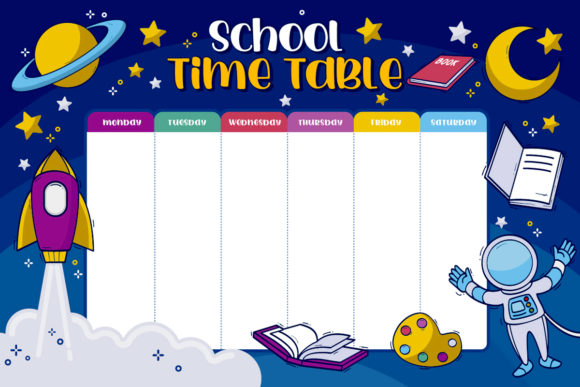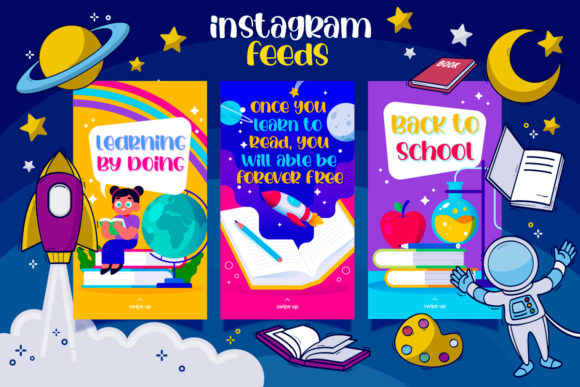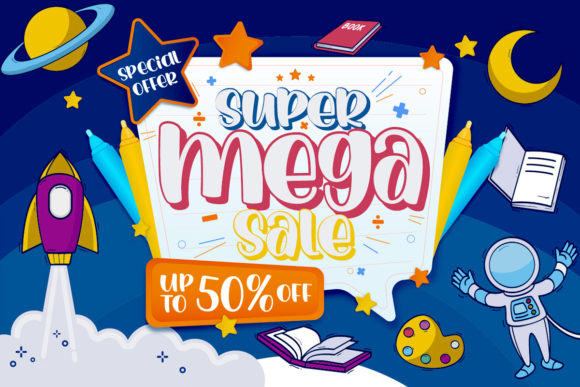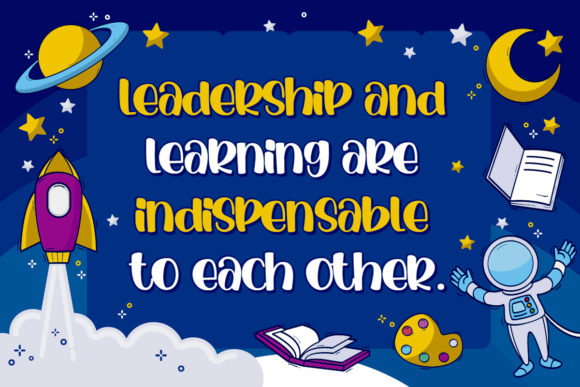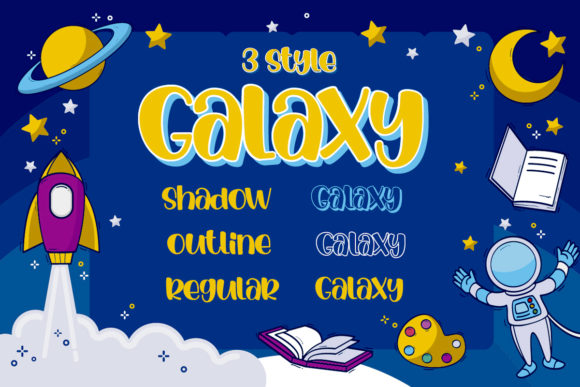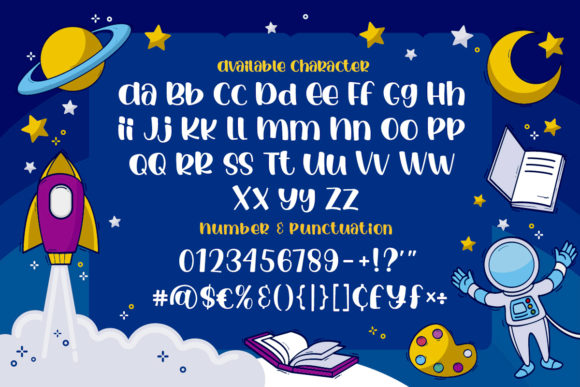
Introduction to Luar Galaxy Font
Have you ever been stuck on a creative project, staring blankly at your screen, searching for the perfect font to bring your vision to life? That’s exactly where I was when I stumbled upon the stunning Luar Galaxy Font. Its unique blend of futuristic and whimsical elements immediately caught my attention, and I knew I had to share it with fellow designers.
With its high-quality design and transparent background, the Luar Galaxy Font is an incredibly versatile resource for any project. Whether you’re working on a children’s book, a casual logo, or a fun graphic, this font is sure to add an extra layer of creativity to your design. And the best part? It’s available for a free download, making it a valuable addition to any designer’s toolkit.
As a design resource, the Luar Galaxy Font is a game-changer. Its endless variations and adaptability make it perfect for designers who want to think outside the box and push the boundaries of their creativity. So why not give it a try and see what amazing things you can create with this incredible font?
Key Features of Luar Galaxy Font
- High-quality, professional design suitable for various creative projects, including logos, posters, and infographics.
- Comes in a single weight, offering a clean and modern aesthetic perfect for various design applications.
Honest Review: Luar Galaxy Font
I recently stumbled upon the Luar Galaxy Font and I must say it’s been a game-changer for my creative project. This free download has been a valuable addition to my design resource library, offering a high-quality font that’s perfect for any futuristic-themed design.
What works well: ✨ The Luar Galaxy Font has a unique, out-of-this-world aesthetic that’s sure to captivate your audience. The transparent background makes it easy to incorporate into any design, and the font is highly customizable. The font also comes in a range of weights, from light to bold, making it versatile for any design project.
- Unique, futuristic aesthetic
- Range of weights (light to bold)
Limitations: ⚠️ While the Luar Galaxy Font is generally well-designed, I did notice that it’s not ideal for use in small text sizes. The font can become pixelated and difficult to read at very small sizes.
Overall, I’m really impressed with the Luar Galaxy Font. It’s a high-quality design resource that’s perfect for any creative project, and the free download is a major plus. I’d definitely recommend it to anyone looking for a unique, high-quality font for their next design project.
The Luar Galaxy Font is a high-quality, free download design resource ideal for creative projects that require a touch of cosmic elegance. With its transparent background, this font is versatile and can be used across various design platforms.
Tips for Getting the Most Out of Luar Galaxy Font
To maximize the impact of the Luar Galaxy Font, experiment with different font sizes, colors, and styles to create a unique visual identity for your creative project.
The Luar Galaxy Font is ideal for use in design projects that require a sense of space and astronomy, such as:
- Space-themed posters and flyers
- Galaxy-inspired logos and branding
- Science fiction-themed graphics and illustrations